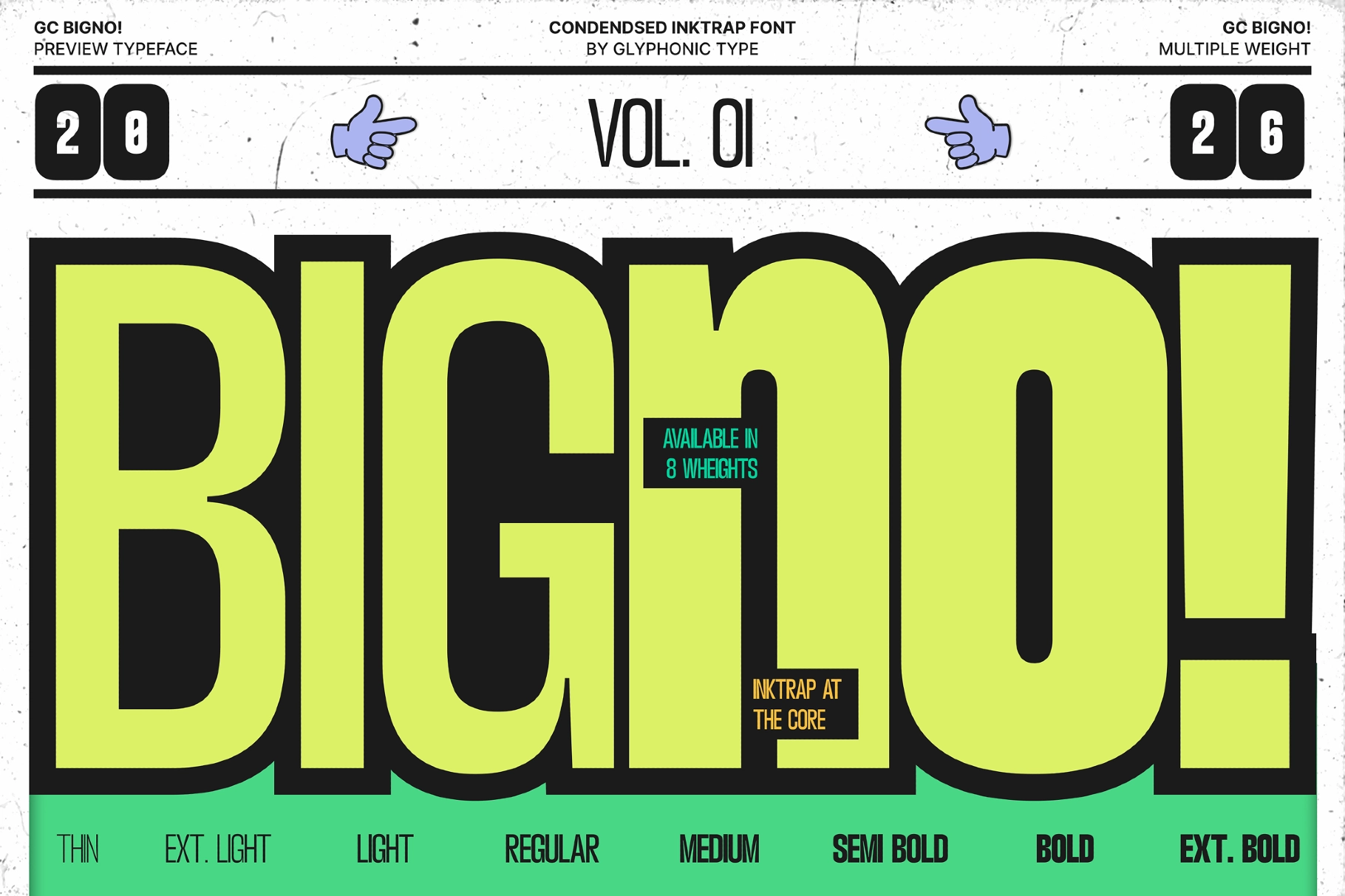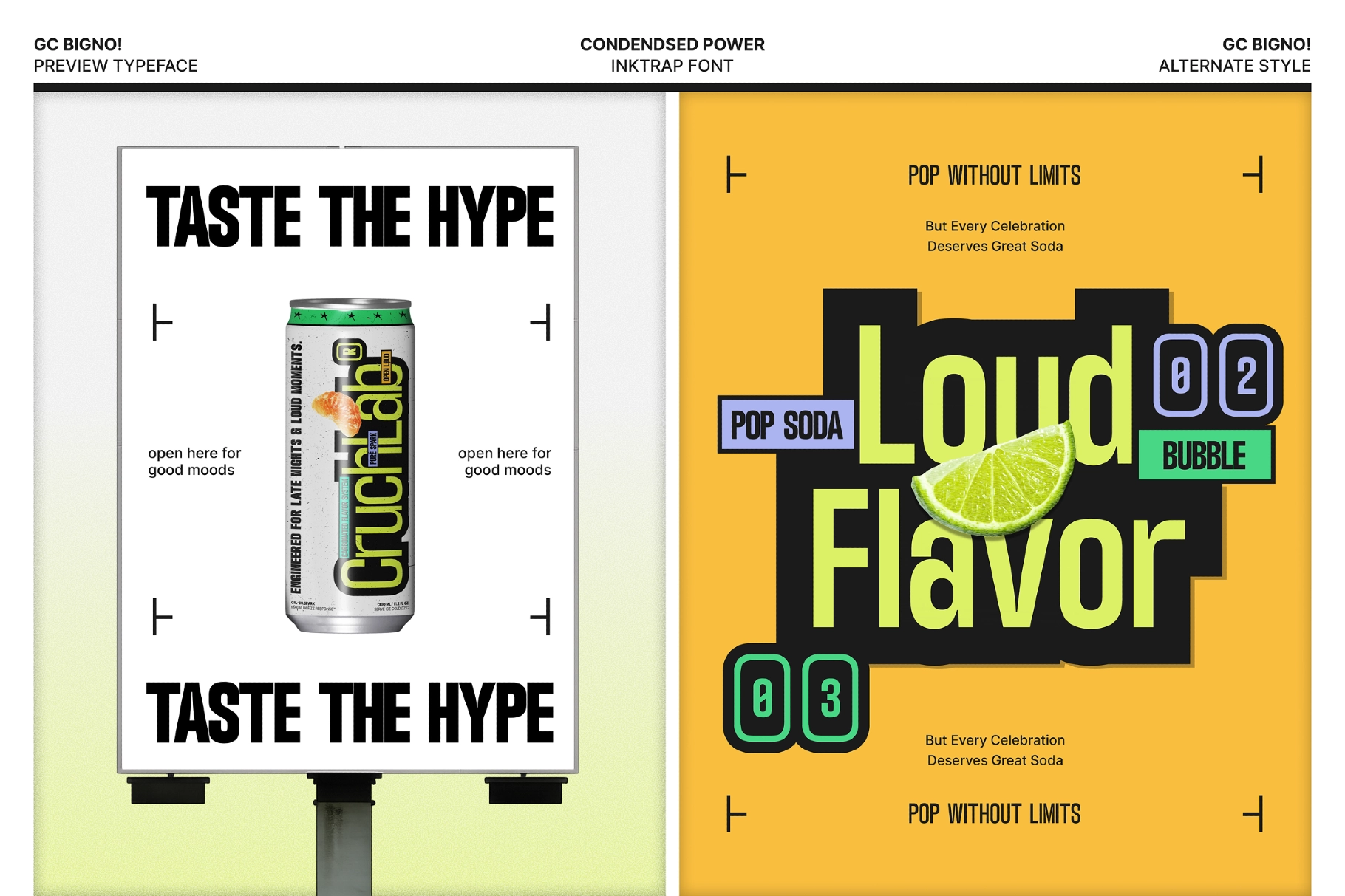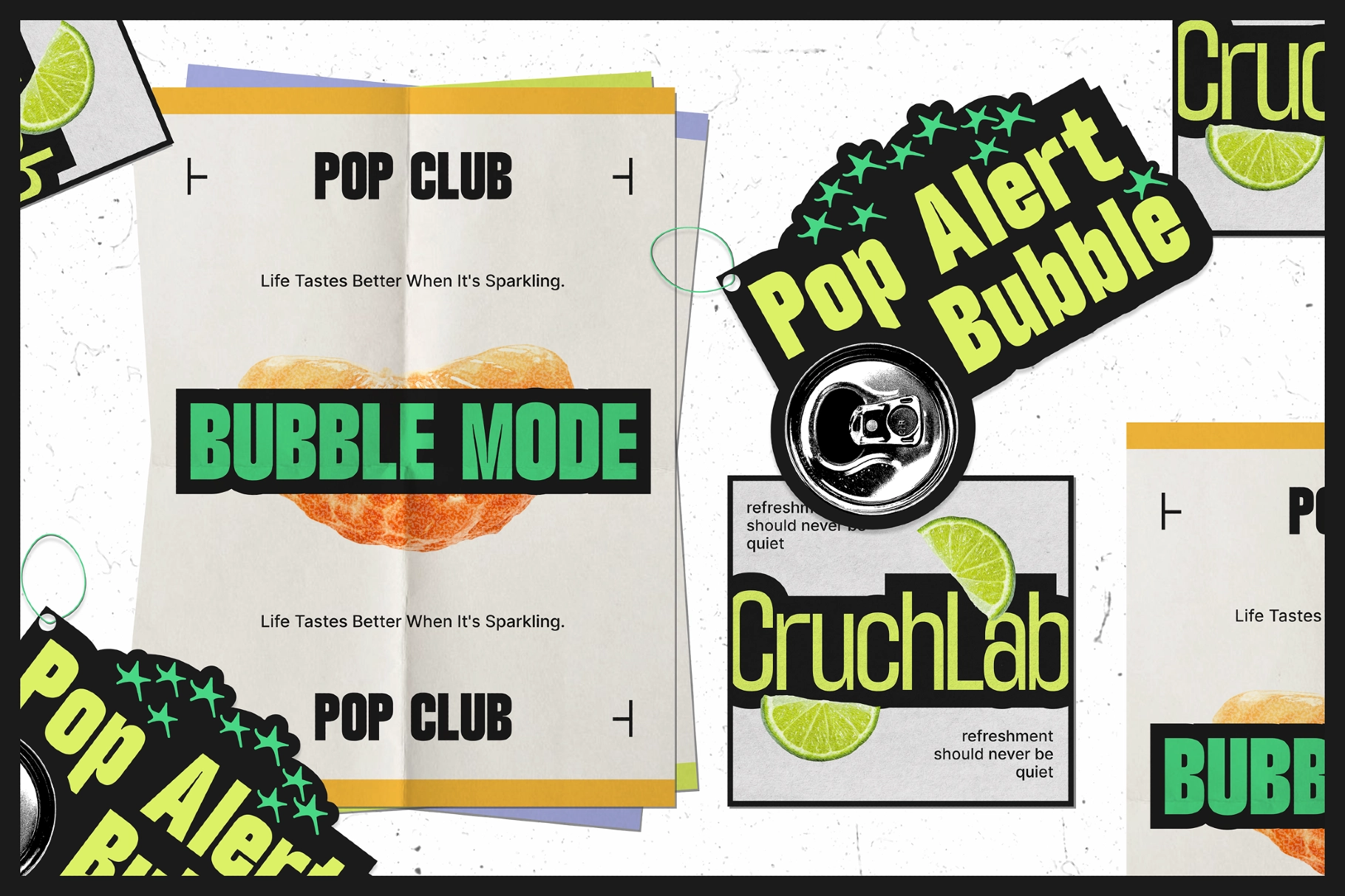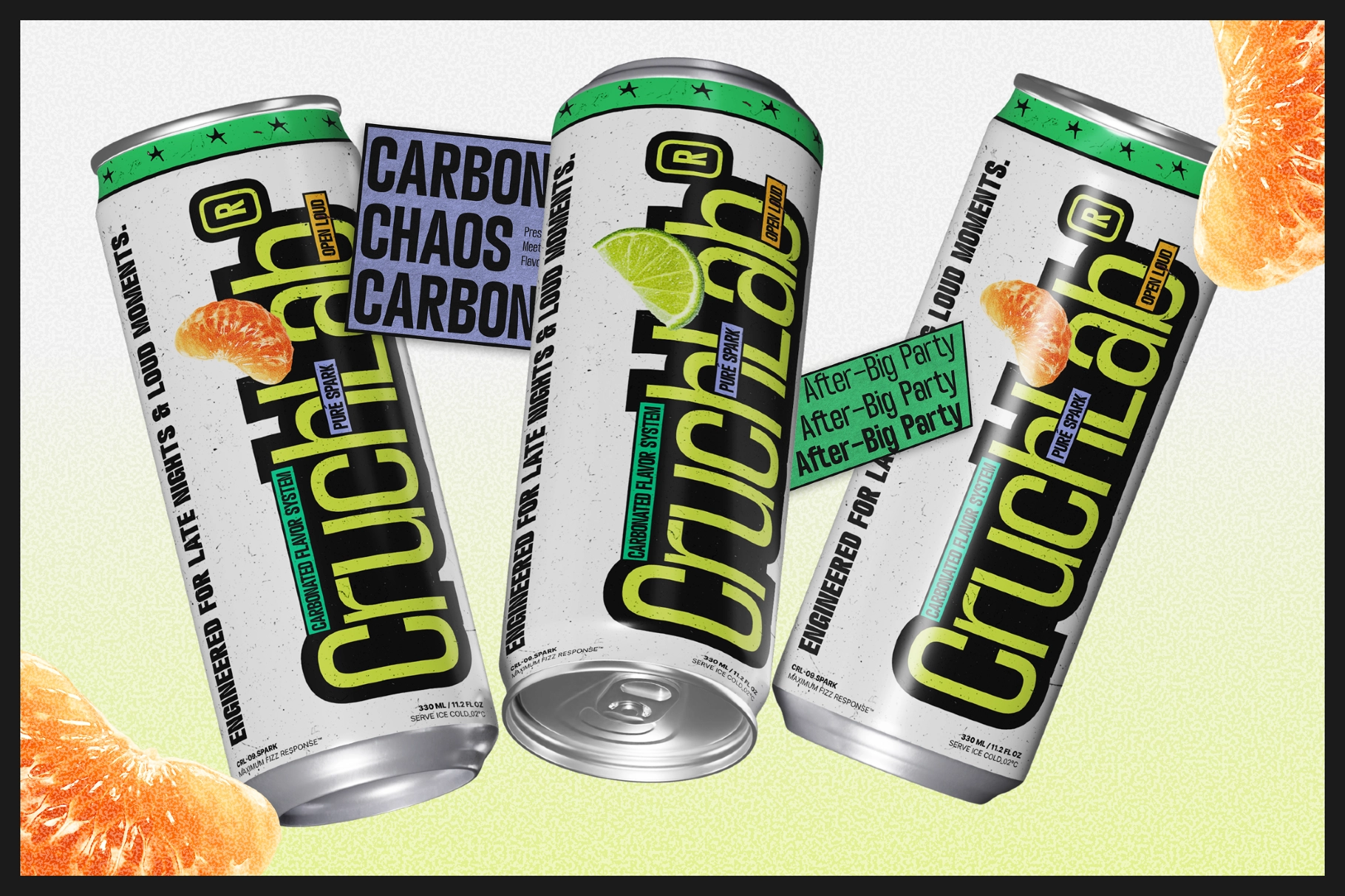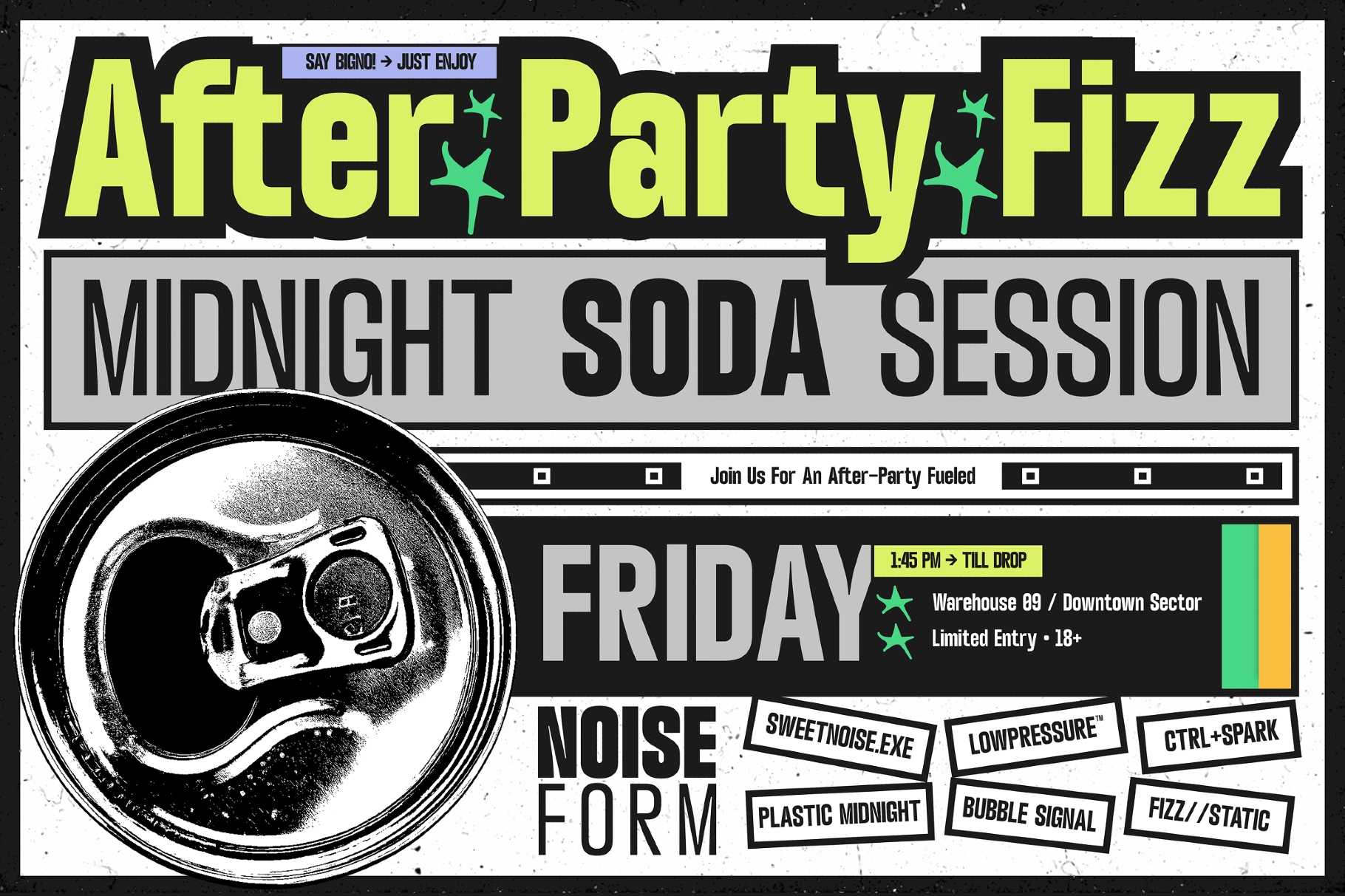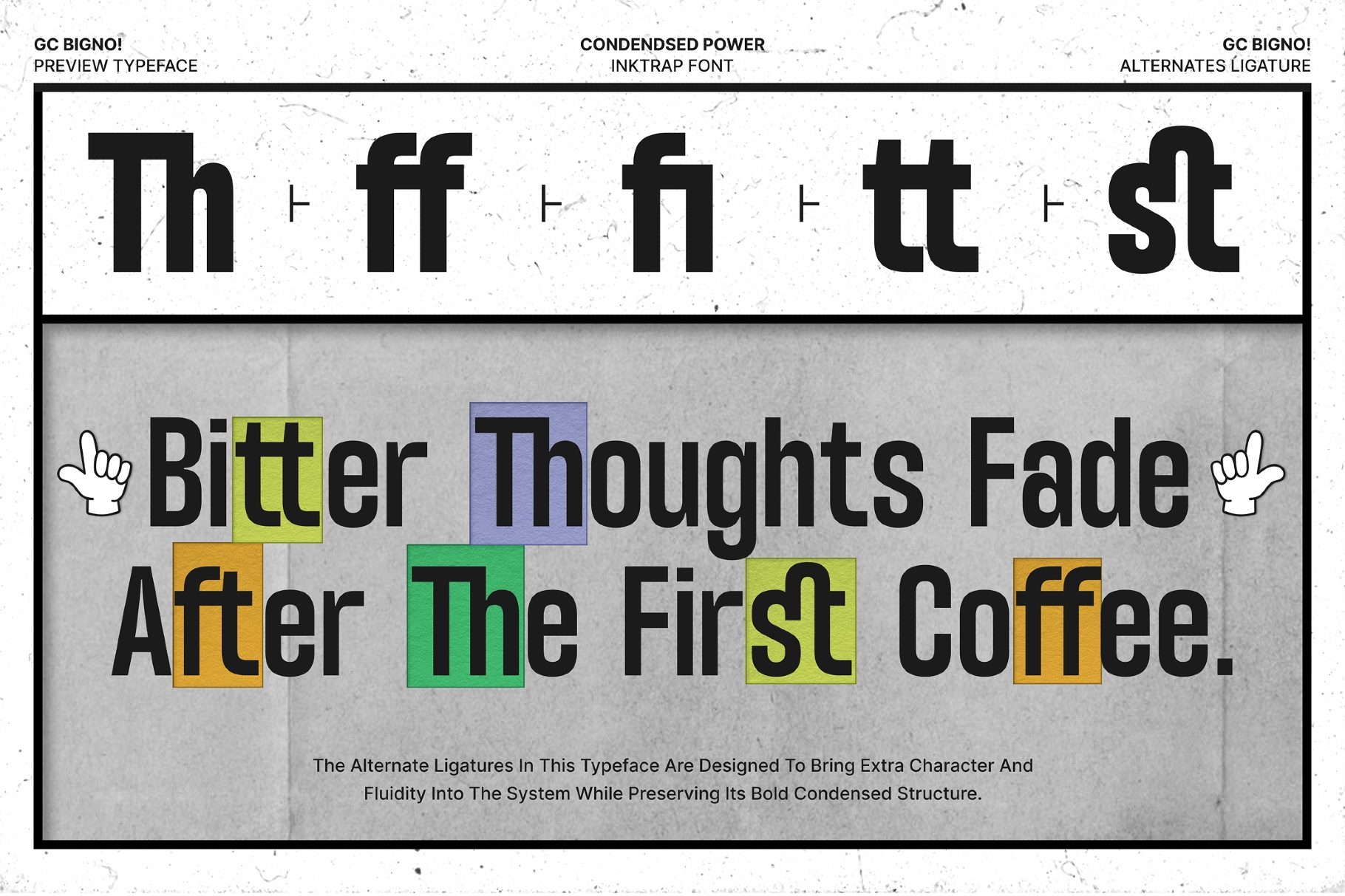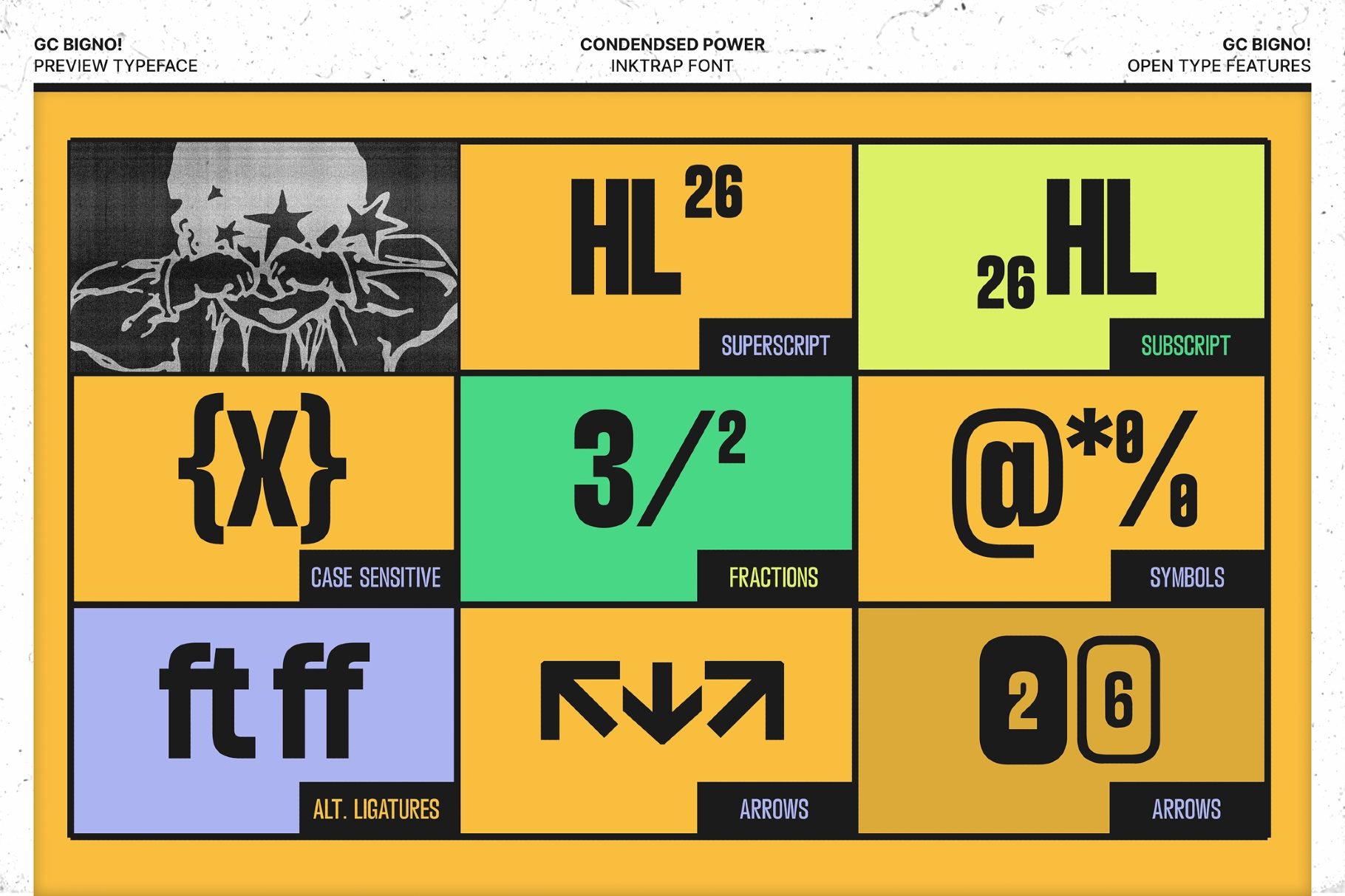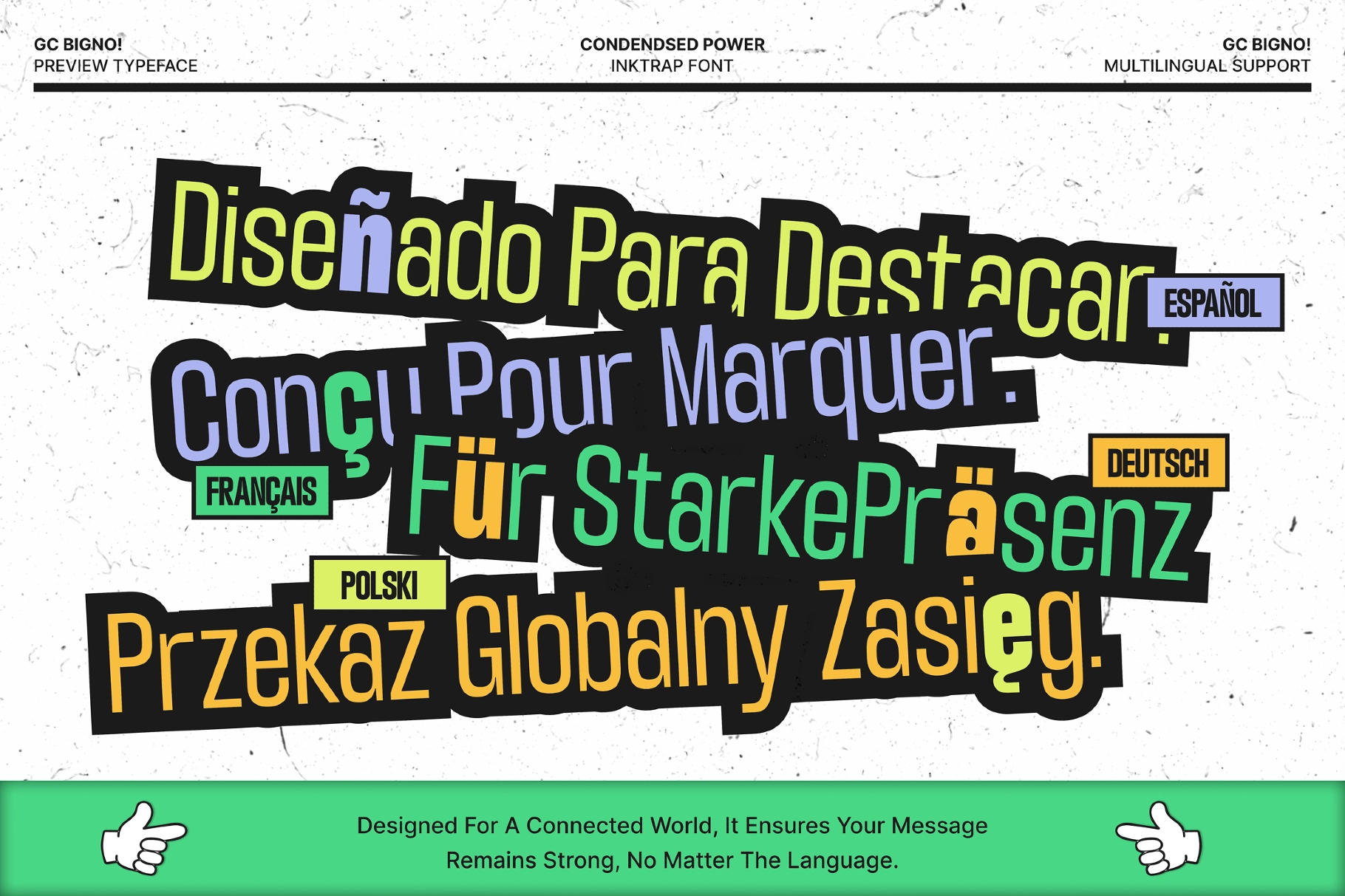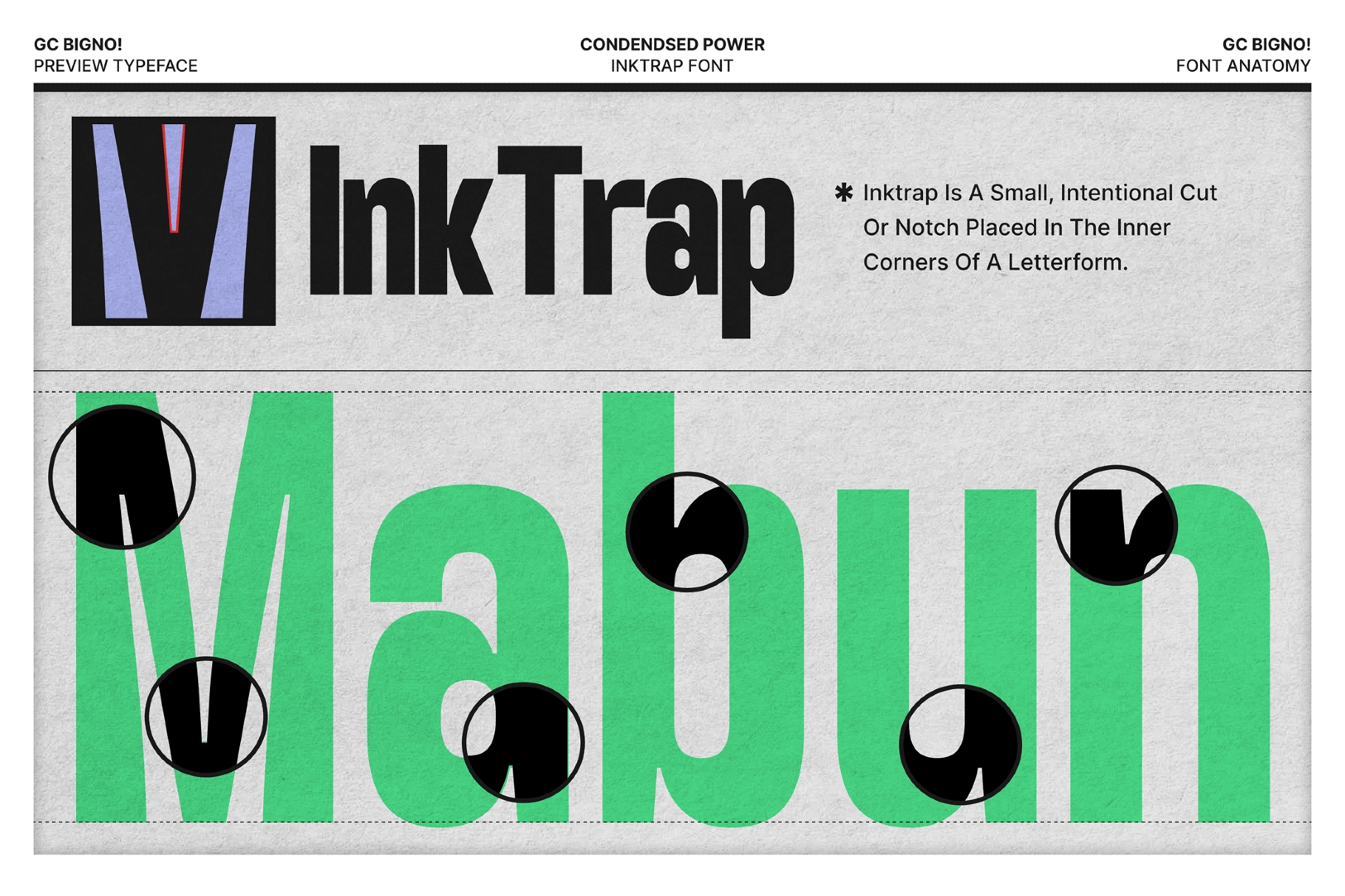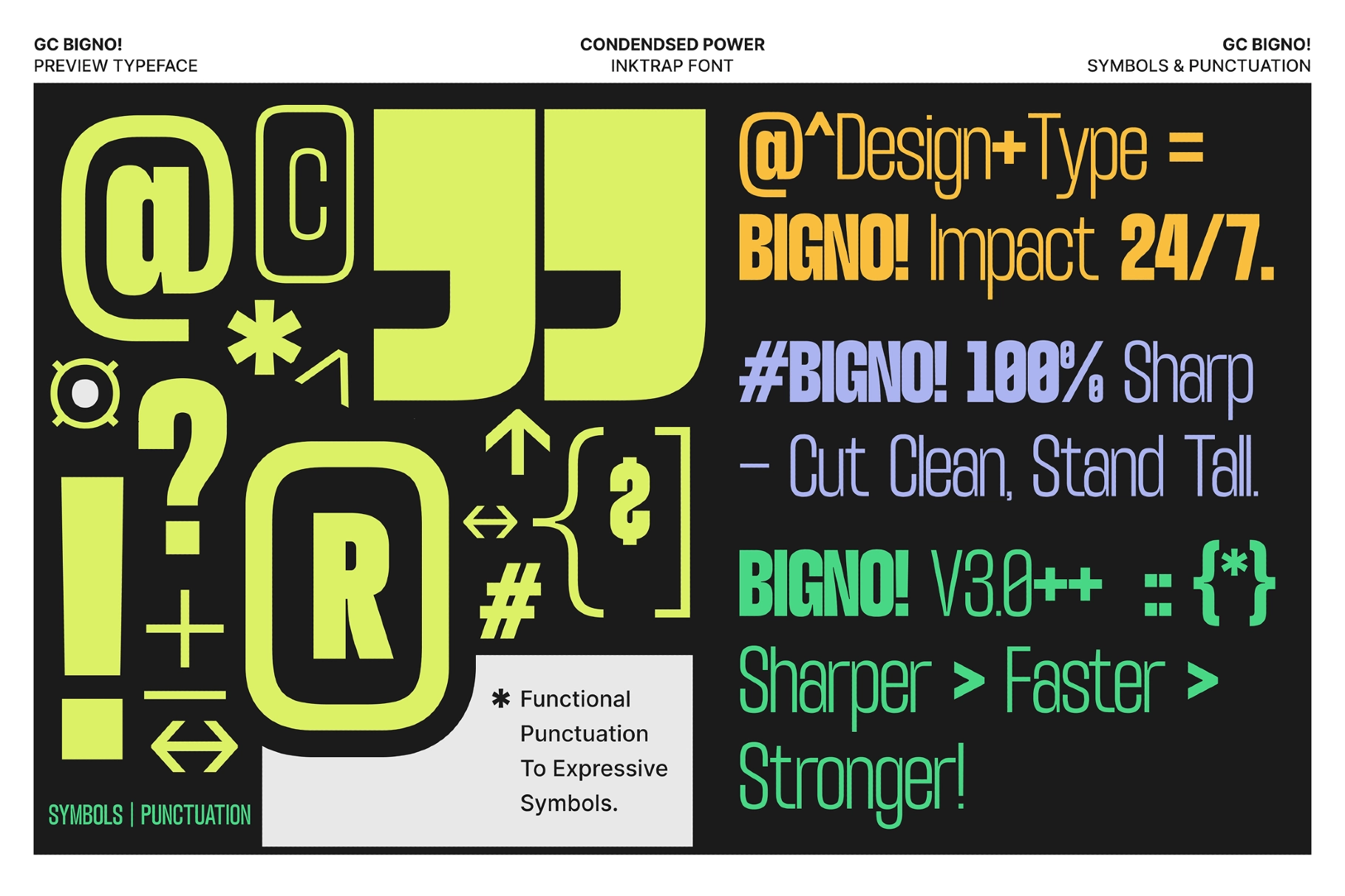
GC Bigno - Condensed Inktrap Grotesk Font
GC Bigno cuts deep inktrap notches into every stroke junction, keeping tight condensed counters from clogging up at small sizes or on rough print stock. The skeleton stays geometric and grotesk-clean underneath, so the inktrap detailing reads as an engineering choice rather than decoration — a bold condensed display typeface that holds its shape across eight weights, from a hairline Thin up to a dense Extra Bold.
Discretionary ligatures reshape select letter pairs for a smoother rhythm, and stylistic alternates swap in a different G and m for headlines that need a bit more character. Fractions, ordinals, superscript and subscript figures, plus both proportional and tabular numerals, round out the technical side, while the extended Latin character set keeps text solid across Central and Eastern European, Baltic, Turkish, Romanian, and Welsh diacritics. Use it for branding systems, posters, editorial headlines, packaging, advertising campaigns, identity systems, sportswear graphics, and app or web headers.
- 8 weights, Thin to Extra Bold;
- uppercase & lowercase;
- numerals, punctuation & symbols;
- discretionary ligatures & stylistic alternate letterforms;
- fractions, ordinals, superscript/subscript, proportional & tabular figures;
- kerning support;
- multilingual support;